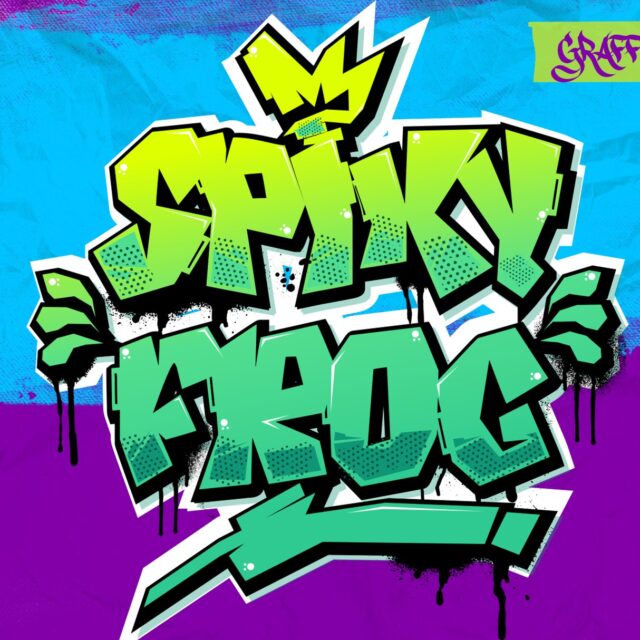
About Spiky Frog
“Spiky Frog” is a graffiti font with sharp characters at every corner. Fonts like this are often used in designs that aim to create a bold, edgy, and stylish appearance. The sharp letter characters at the corners provide a strong and expressive look, commonly used in street art, posters, or other creative projects.
With “Spiky Frog,” you can create designs that exude boldness and courage with sharp and stylish typography. This font is often used to emphasize a strong message in your design.